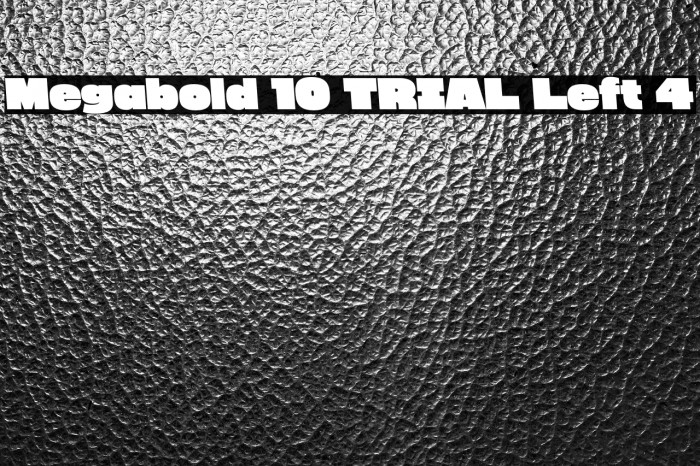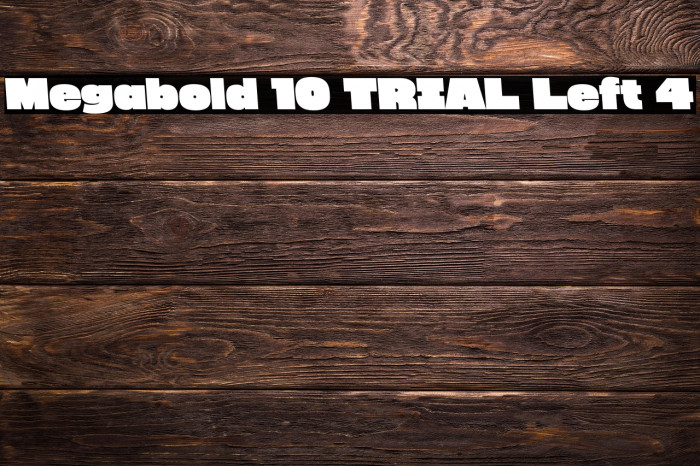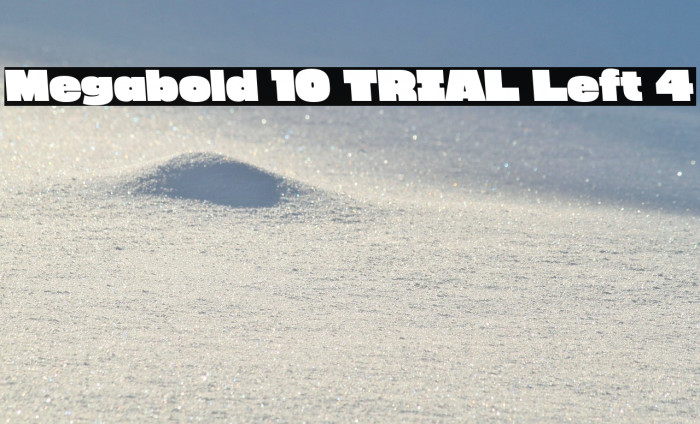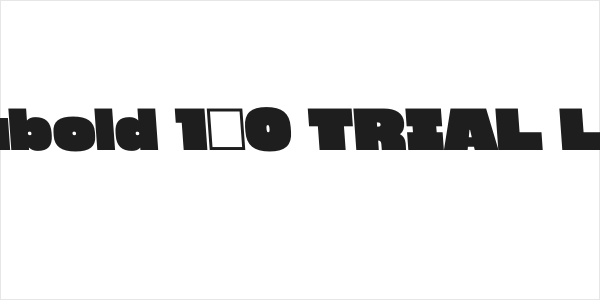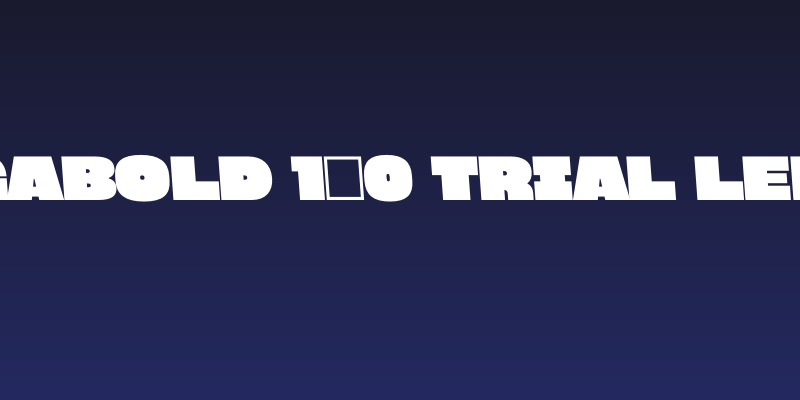
Megabold 1.0 TRIAL Left 4 Font
Megabold 1.0 TRIAL Left 4 Description
This font features a bold and impactful design, characterized by its thick, heavy strokes and strong presence. The uppercase and lowercase letters maintain a consistent weight, creating a uniform appearance across all characters. The numbers follow the same bold style, ensuring readability and emphasis. The special characters are designed to match the overall aesthetic, making them suitable for various design needs. The font's boldness and solid structure make it ideal for attention-grabbing headlines and titles.
| Proposed Projects | Ideal for posters, headlines, branding, and advertising where a strong visual impact is needed. |